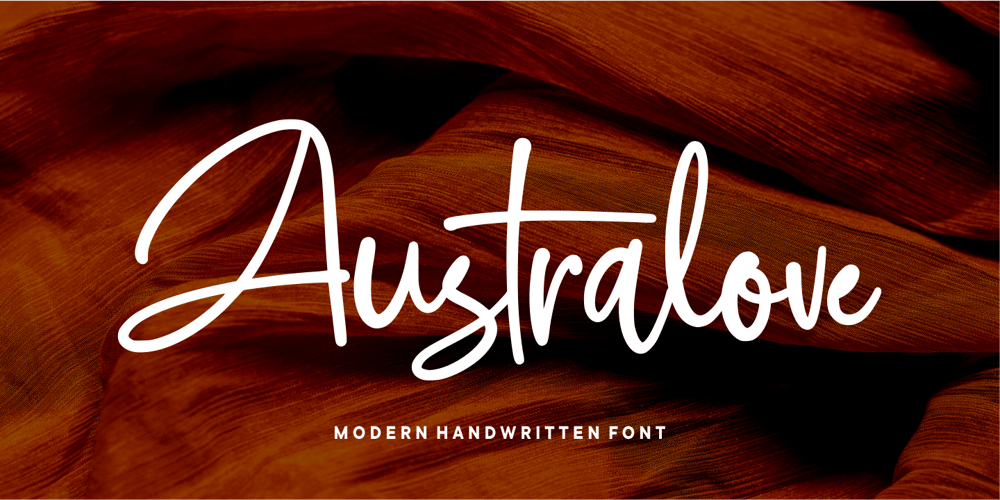
Australove Font Family was designed by Risman Ginarwan and published by Garisman Studio. Australove contains 1 styles and family package options. Australove is a modern handwritten font with magical radiance. I believe this font is perfect for creating signature logos and watermarks for a photography studio or wedding invitation, best for initial or branding logo signatures. Made fully with love and uniqueness!!Australove includes a full set of beautiful hand-lettered uppercase and lowercase letters, numerals, a large range of punctuation and ligatures, and contains alternates in every special glyphs for an optional letter! This is so sick!